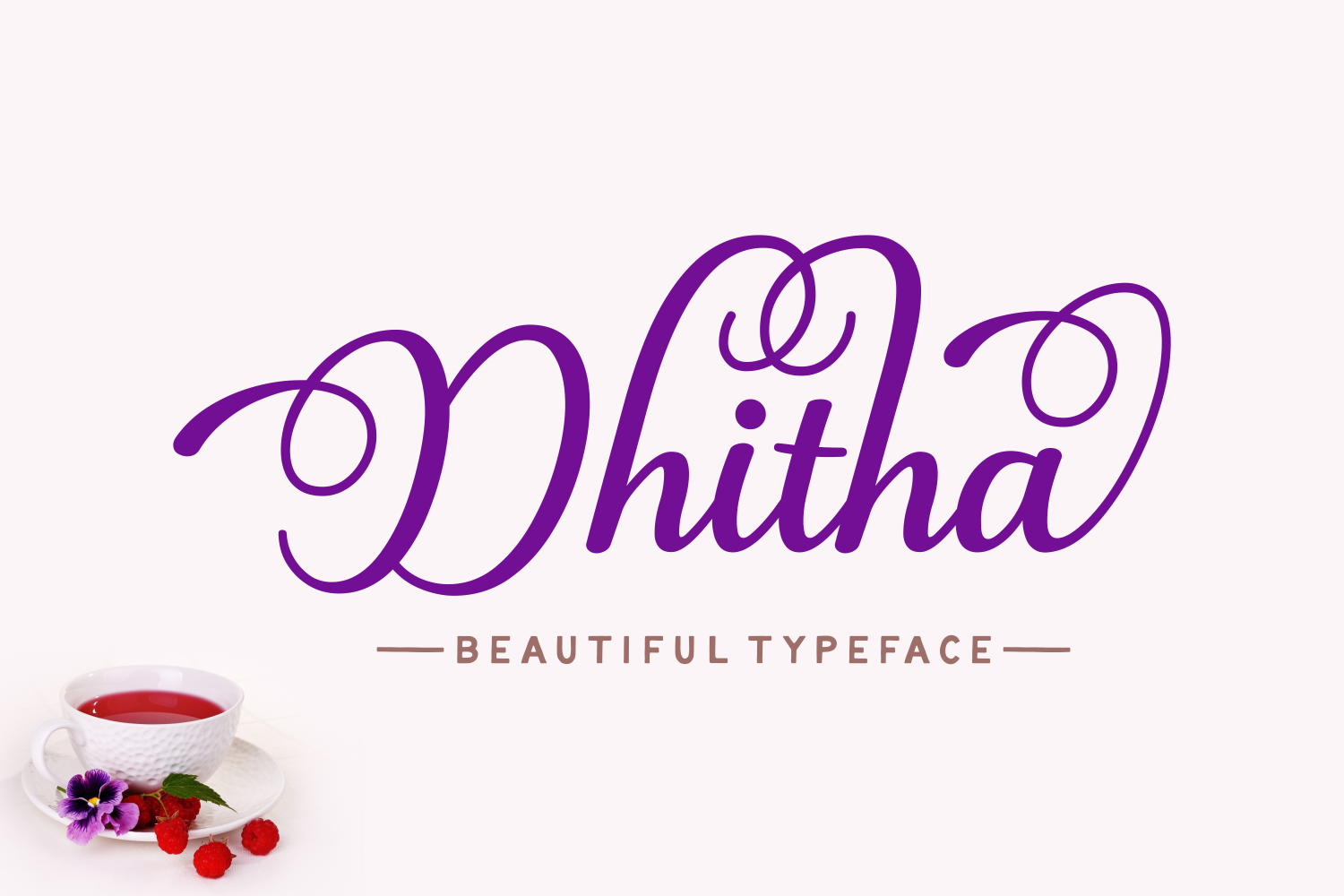
Dhitha Font
About Dhitha Font
Dhitha is a gorgeous script font, ideal for headlines and displays. This font comes with stylistic alternates and well placed swashes so you can create beautiful designs.